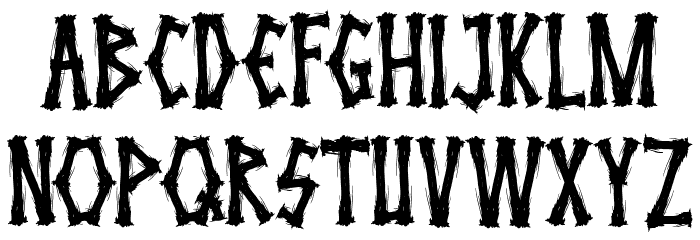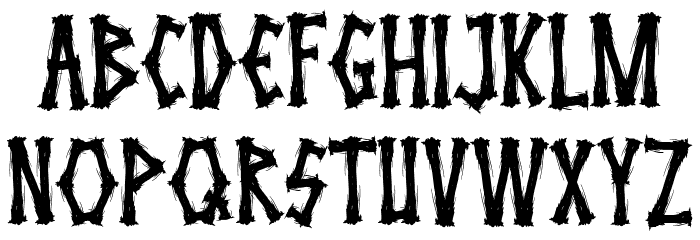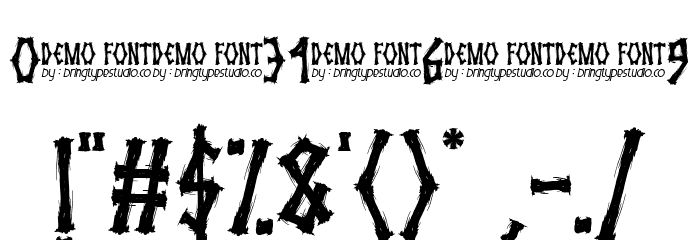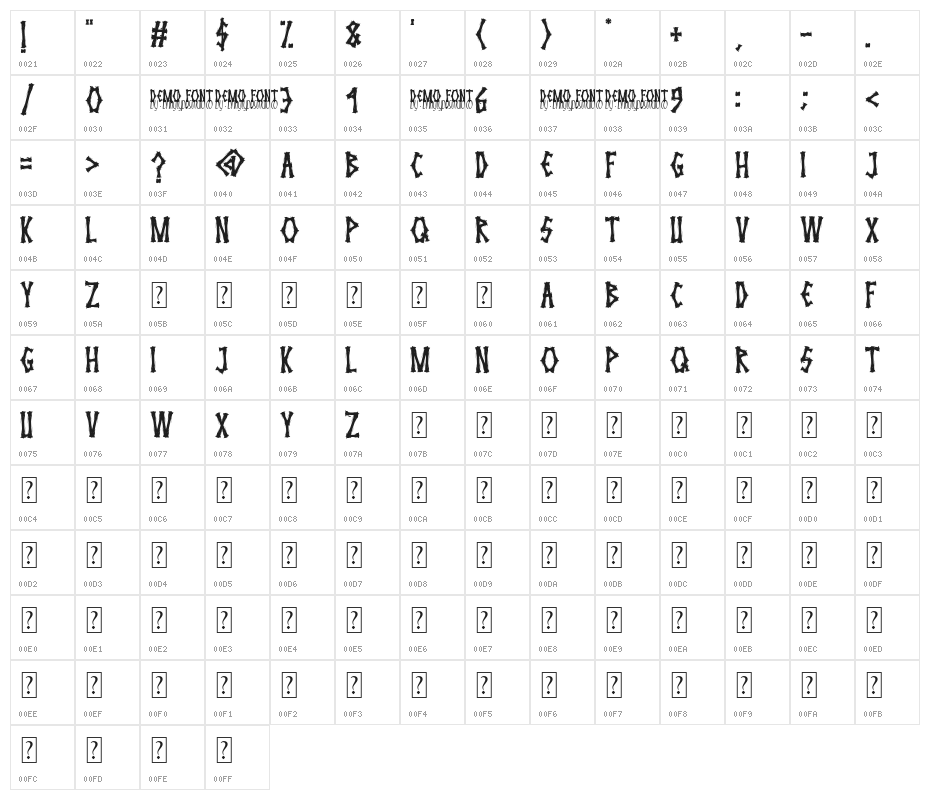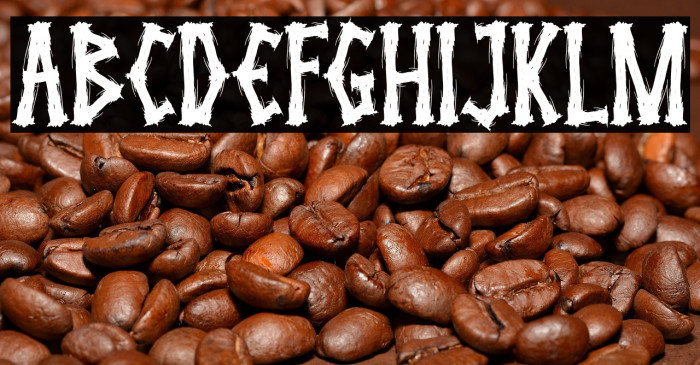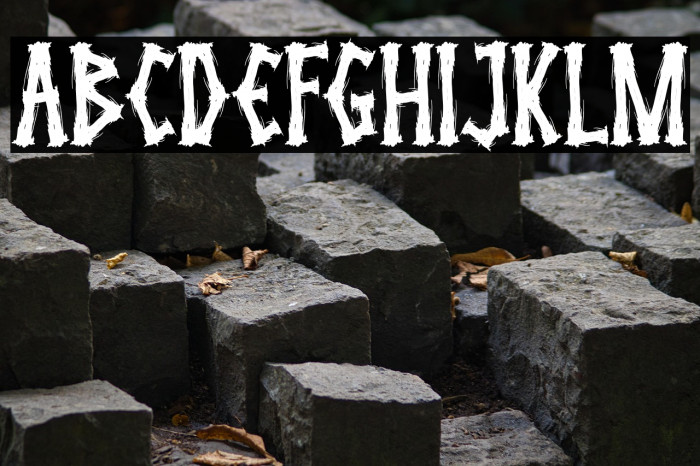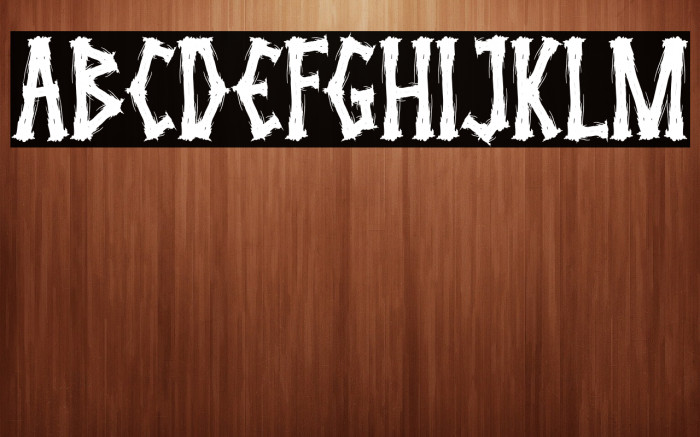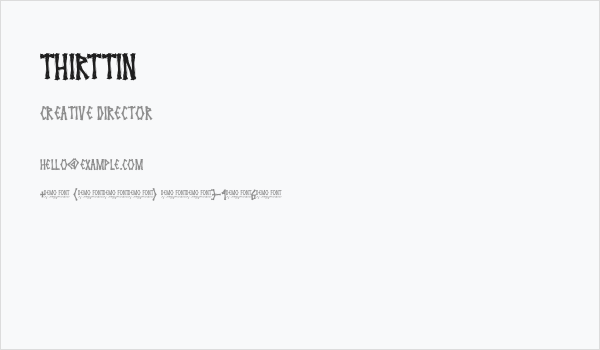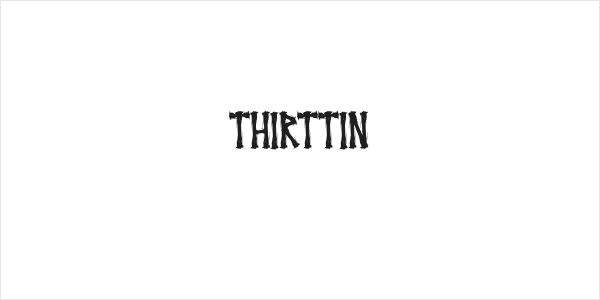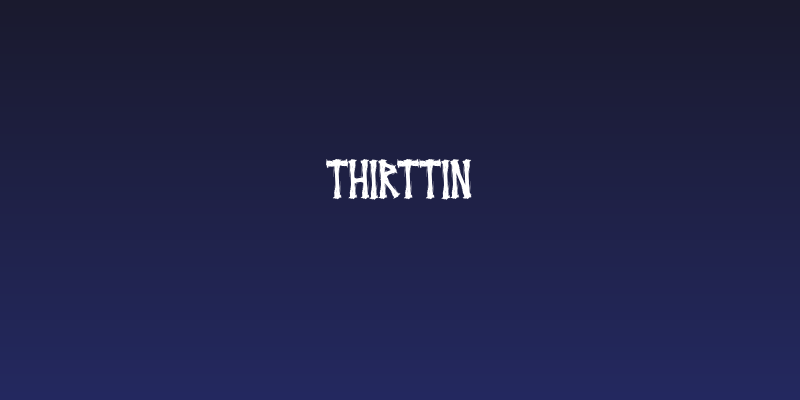
THIRTTIN Font
This font features a rugged, hand-drawn style with irregular edges and a bold presence. The characters are designed to look like they were sketched with a rough brush, giving them a dynamic and energetic appearance. The uppercase and lowercase letters maintain a consistent style, with sharp angles and a slightly chaotic feel. Numbers and special characters follow the same design principles, ensuring a cohesive look across all glyphs. This font is ideal for projects that require a bold, eye-catching display with a touch of artistic flair.
A bold, hand-drawn font with a rugged, sketch-like appearance.
- Proposed Projects: Ideal for posters, album covers, graffiti art, and edgy branding projects.